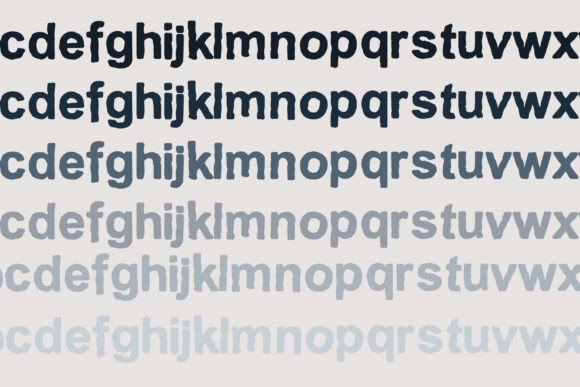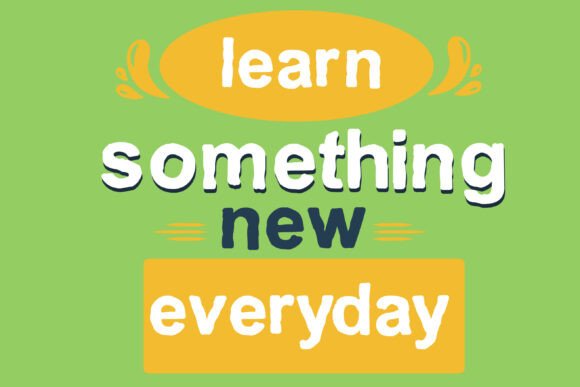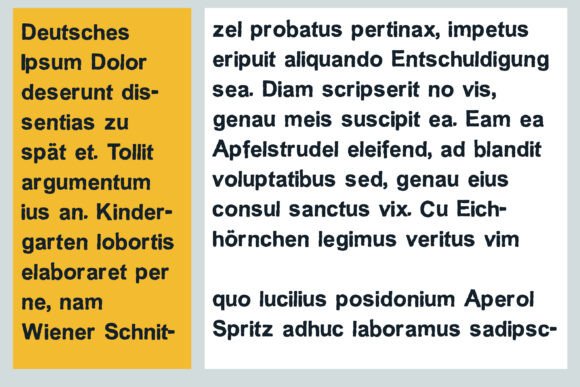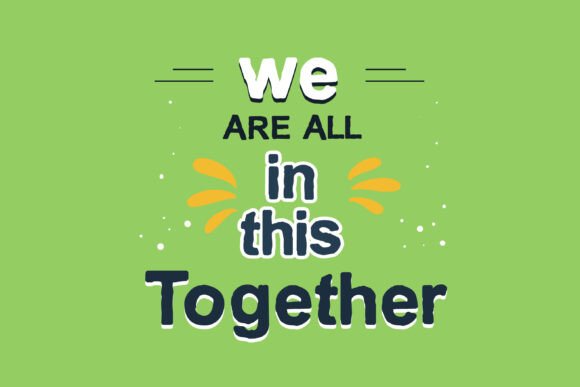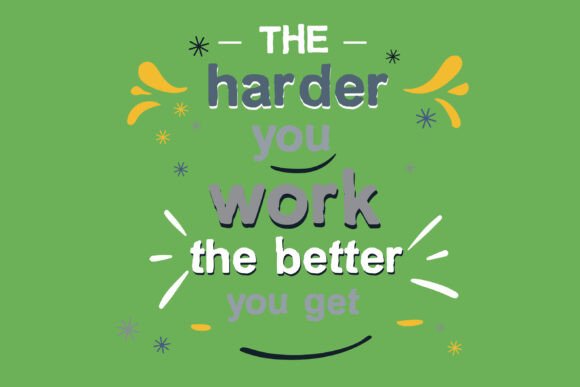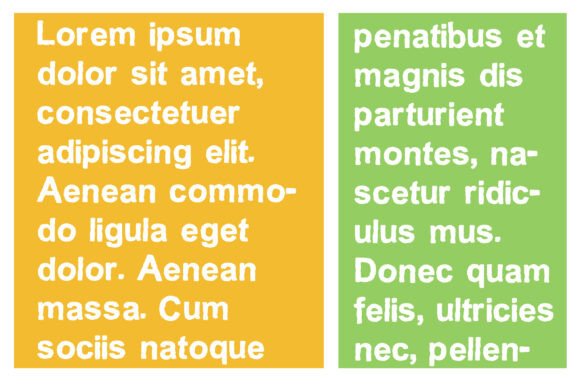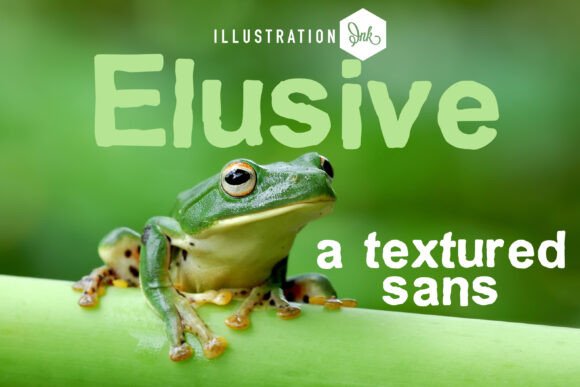
The Elusive Font: Uncovering the Charm of Hand-Crafted Sans Serif
In the realm of typography, fonts play a vital role in conveying messages, expressing emotions, and creating visual identities. Among the numerous font styles, hand-crafted sans serif fonts have gained significant attention for their unique texture and personalized touch. One such font that has captured the hearts of designers and crafters is the Elusive Font. In this article, we’ll delve into the world of hand-crafted sans serif fonts, explore the characteristics of the Elusive Font, and discuss its applications in various design projects.
A hand-crafted font is a typeface designed to mimic the appearance of handwriting. It is often created using traditional techniques, such as calligraphy or lettering, to produce a distinctive and personalized look. Hand-crafted fonts can range from formal and elegant to informal and playful, making them suitable for a wide range of applications, including invitations, greeting cards, posters, and digital media.
The Charm of Hand-Crafted Sans Serif Fonts
Sans serif fonts, characterized by their clean and minimalist appearance, have become increasingly popular in modern design. When combined with hand-crafted techniques, sans serif fonts take on a new level of sophistication and character. Hand-crafted sans serif fonts, like the Elusive Font, boast a bold and textured look that adds warmth and personality to any design project.
Introducing the Elusive Font
The Elusive Font is a stunning hand-crafted sans serif font that exudes confidence and style. Its bold and textured appearance makes it perfect for designers and crafters looking to add a touch of personality to their work. With its unique character set and exceptional legibility, the Elusive Font is ideal for a variety of applications, from branding and advertising to packaging and digital media.
Characteristics of the Elusive Font
The Elusive Font features a range of distinctive characteristics that set it apart from other hand-crafted sans serif fonts. Some of its notable features include:
- Bold and textured appearance: The Elusive Font boasts a robust and tactile look that adds depth and visual interest to any design.
- Exceptional legibility: Despite its bold and textured nature, the Elusive Font remains highly legible, making it suitable for use in a variety of contexts.
- Unique character set: The Elusive Font features a carefully crafted character set that includes a range of letters, numbers, and punctuation marks.
Applications of the Elusive Font
The Elusive Font is a versatile typeface that can be used in a wide range of design projects, including:
- Invitations and greeting cards: The Elusive Font’s bold and textured appearance makes it perfect for creating eye-catching invitations and greeting cards.
- Branding and advertising: The font’s unique character and exceptional legibility make it an excellent choice for branding and advertising projects.
- Packaging and product design: The Elusive Font can add a touch of personality and sophistication to packaging and product design.
- Digital media: The font’s versatility and legibility make it suitable for use in digital media, including websites, social media, and email marketing.
Tips for Using the Elusive Font
To get the most out of the Elusive Font, consider the following tips:
- Use it sparingly: The Elusive Font’s bold and textured appearance can be overwhelming if overused. Use it sparingly to create visual interest and emphasis.
- Experiment with colors and textures: The Elusive Font can be paired with a range of colors and textures to create unique and eye-catching designs.
- Pair it with complementary fonts: The Elusive Font can be paired with complementary fonts to create visually appealing and harmonious designs.
The Elusive Font is a stunning hand-crafted sans serif font that offers a unique blend of style, personality, and versatility. With its bold and textured appearance, exceptional legibility, and unique character set, this font is perfect for designers and crafters looking to add a touch of sophistication and charm to their work. Whether used in invitations, branding, packaging, or digital media, the Elusive Font is sure to make a lasting impression.